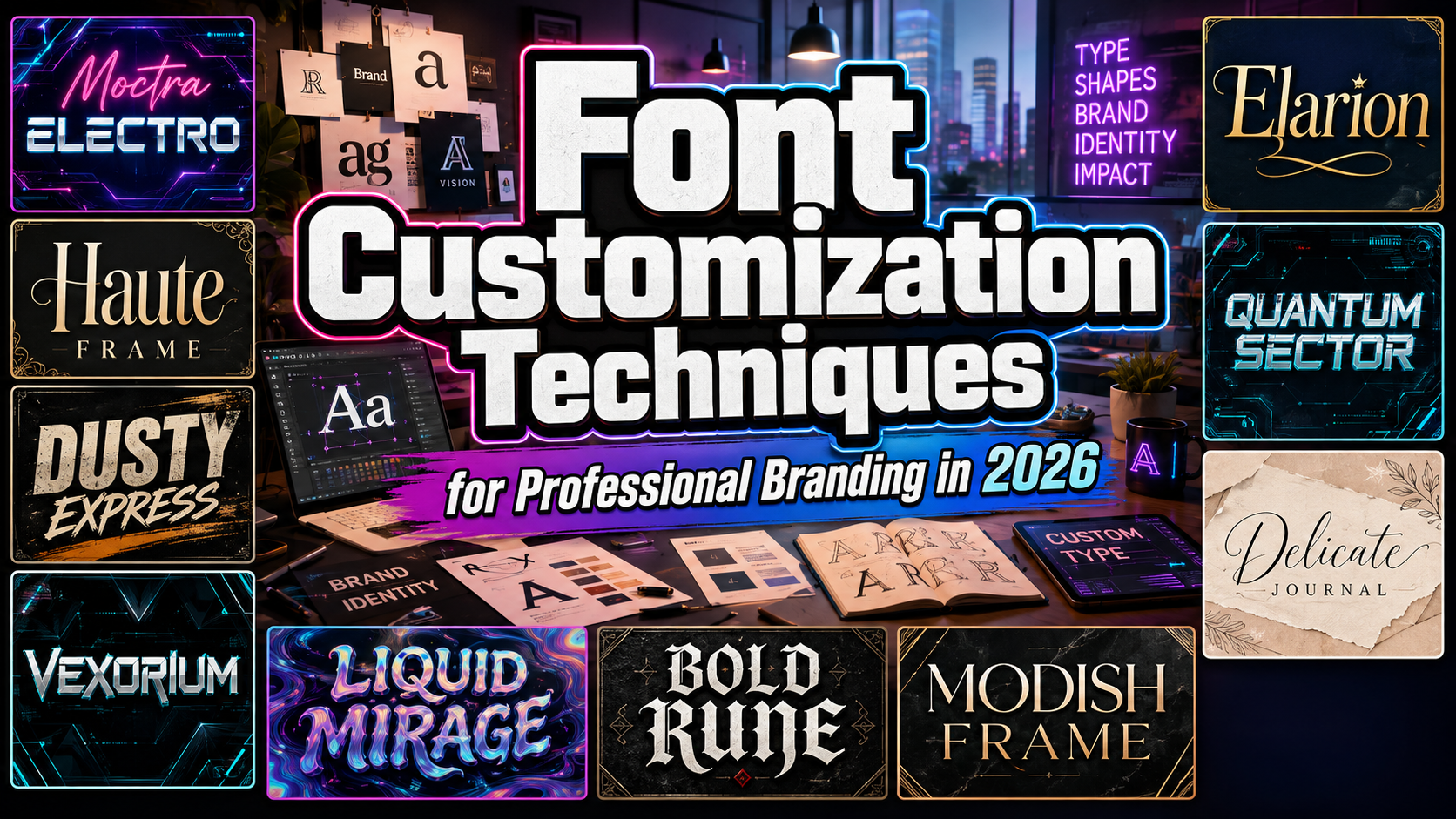
Typography has evolved beyond simply choosing a typeface. Today’s brands increasingly seek font customization to create distinctive visual identities that cannot be replicated by competitors. Instead of relying solely on off-the-shelf fonts, businesses are modifying existing typefaces, developing exclusive letterforms, and creating custom typography systems that reinforce their brand personality.
Font customization refers to the process of adapting or modifying a typeface to better align with a specific brand, campaign, or creative project. This can include adjusting letter proportions, creating custom ligatures, redesigning individual glyphs, adding stylistic alternates, modifying textures, or developing entirely exclusive font families. These customizations help brands achieve stronger recognition while maintaining consistency across digital and printed media.
For graphic designers, branding agencies, startups, and established companies, customized typography has become a strategic investment rather than simply a design choice. Unique typography can differentiate products, improve memorability, and communicate personality in ways that standard fonts cannot.
This guide explores the principles of font customization, explains why it matters for branding, and showcases ten excellent fonts that provide strong foundations for customized typography projects.
Before customizing any font, establish clear branding objectives.
Define Your Brand Personality
Ask yourself:
- Should the brand feel modern or classic?
- Minimalist or expressive?
- Luxury or approachable?
- Futuristic or handcrafted?
Typography should reinforce these characteristics.
Customize With Purpose
Common customization techniques include:
- Letterform refinement
- Custom ligatures
- Alternative characters
- Texture modifications
- Stroke adjustments
- Logo-specific modifications
Maintain Readability
Even highly customized typography should remain legible across websites, packaging, social media, and printed materials.
1. Moctra – Electro Font
Moctra provides an outstanding foundation for technology-oriented font customization. Its futuristic geometric construction allows designers to easily modify terminals, angular details, and modular shapes while maintaining a clean digital identity. Whether creating a startup logo or a custom UI branding system, Moctra offers exceptional flexibility for designers seeking modern and exclusive typography.
Pros
- Modular futuristic structure
- Easy to customize
- Excellent digital branding potential
- Highly distinctive
2. Haute Frame – Fashion Font
Haute Frame combines editorial elegance with fashion-inspired sophistication. The refined proportions make it ideal for customization through ligatures, stylistic alternates, and luxury logo development. Designers can create exclusive visual identities without losing the font’s premium character.
Pros
- Luxury editorial style
- Elegant construction
- Excellent customization potential
- Premium branding appeal
3. Dusty Express – Rough Texture Font
Dusty Express offers a handcrafted texture that already feels unique while leaving room for additional creative modification. Designers can customize texture intensity, roughness, and decorative elements to create highly personalized branding for artisan products and independent businesses.
Pros
- Authentic handcrafted look
- Rich texture
- Strong personality
- Highly memorable
4. Vexorium – Modern Experimental Font
Vexorium is designed for experimentation. Its bold geometric construction encourages designers to modify shapes, spacing, and proportions to create entirely new visual systems. It is particularly well suited for creative agencies and innovative digital brands.
Pros
- Experimental architecture
- Strong visual impact
- Excellent branding flexibility
- Modern appearance
5. Elarion – Elegant Serif Font
Elarion demonstrates how serif typography can be customized while preserving elegance. Designers can create custom ligatures, logo variations, and luxury packaging systems that remain timeless and refined.
Whether you’re developing a logo, refining a visual identity, or creating exclusive branding assets, strategic font customization allows your typography to become a true extension of your brand rather than simply another design element.